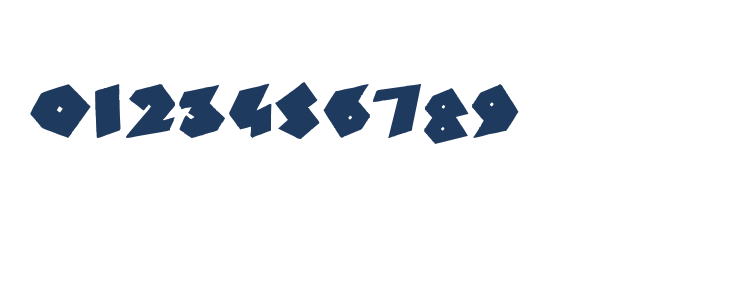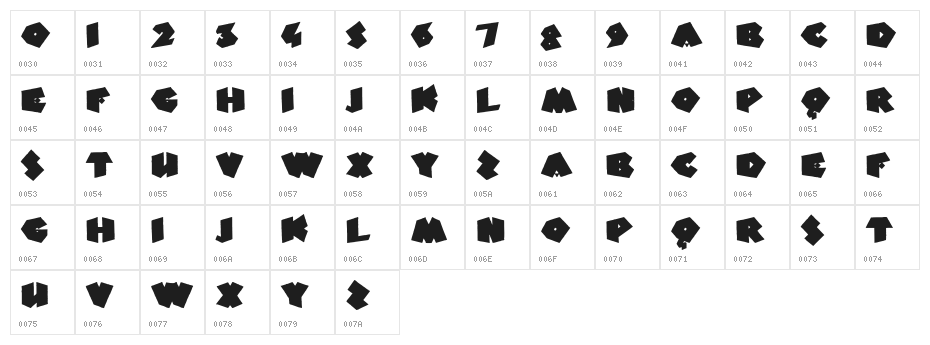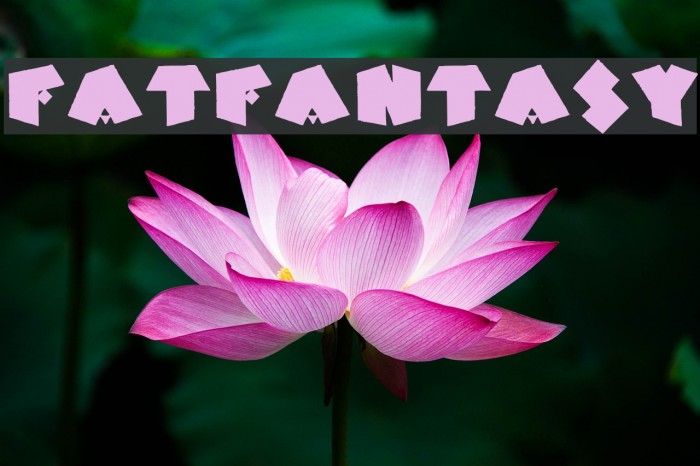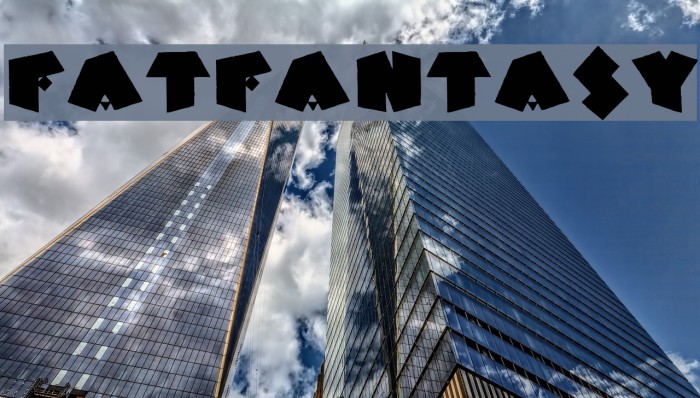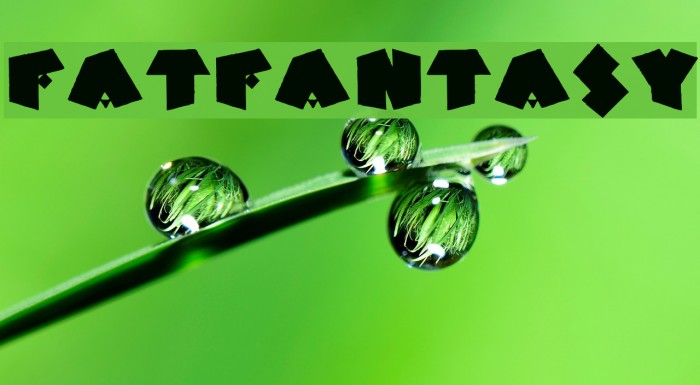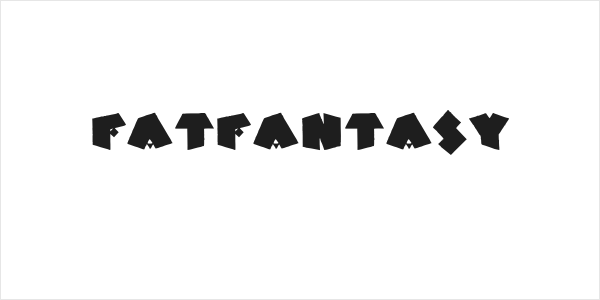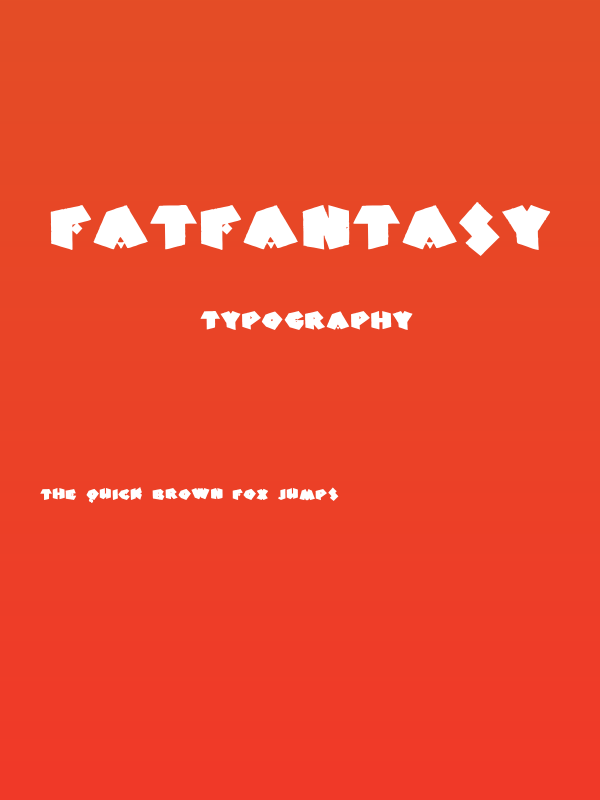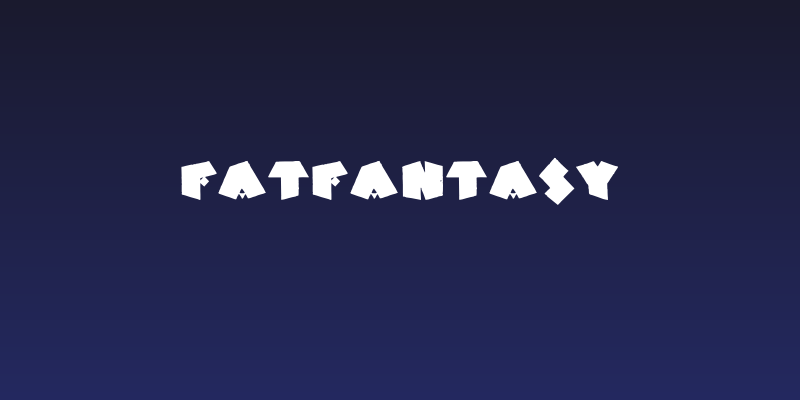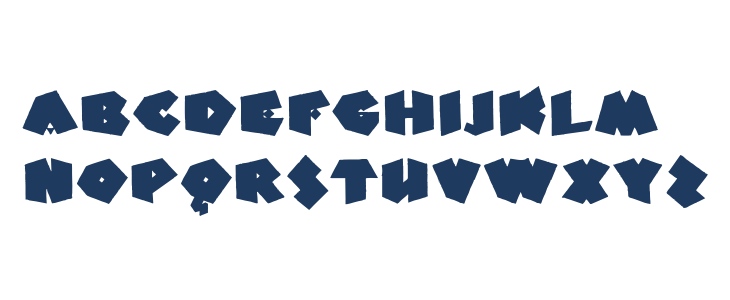
FatFantasy Font
FatFantasy Description
This font features a bold and playful design with a chunky, geometric style. The characters are heavily stylized, with angular cuts and a blocky appearance that gives them a unique, fantasy-like aesthetic. The uppercase and lowercase letters maintain a consistent weight, creating a cohesive look across the alphabet. Numbers and special characters follow the same design principles, ensuring uniformity. The font's distinctiveness makes it ideal for projects that require a strong visual impact.
| Overall Style | Fantasy, Playful, Bold |
| Proposed Projects | Ideal for video game titles, fantasy-themed posters, children's book covers, and creative branding projects. |